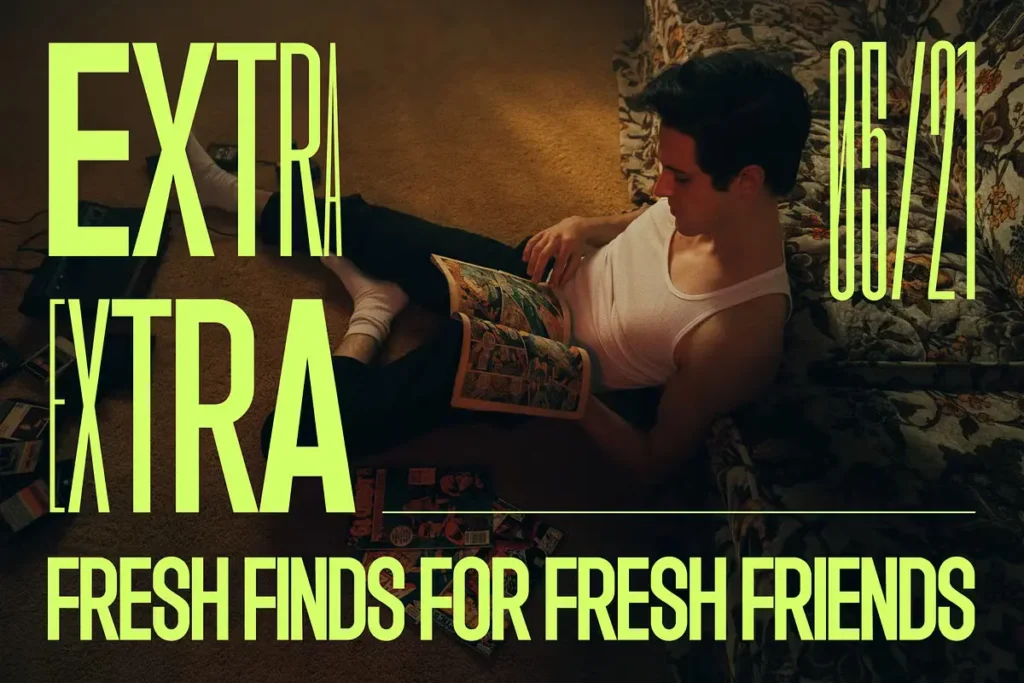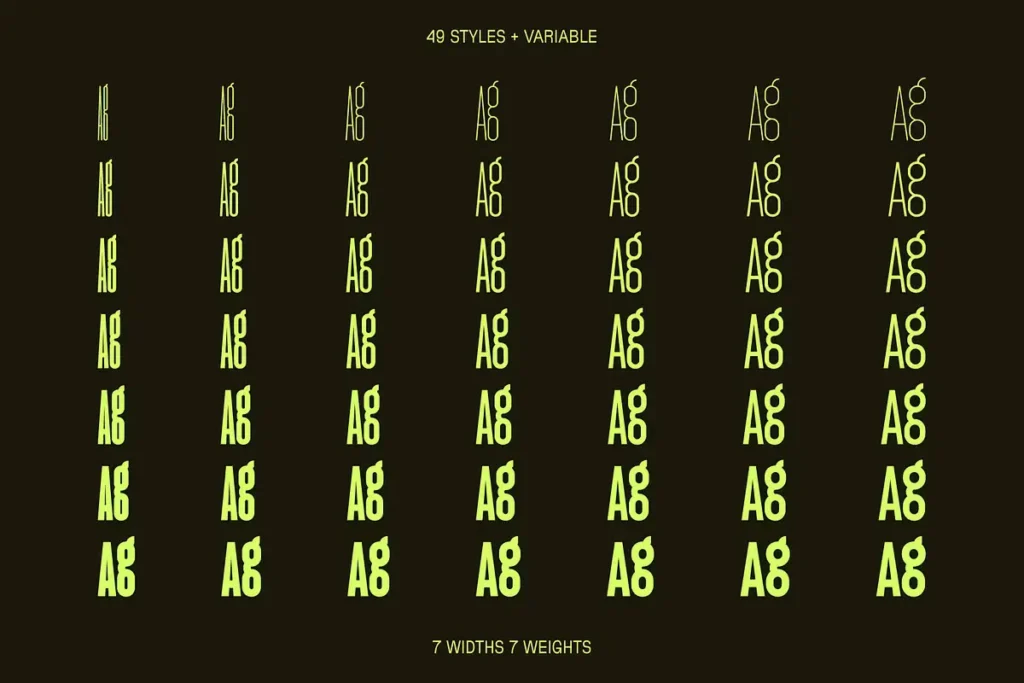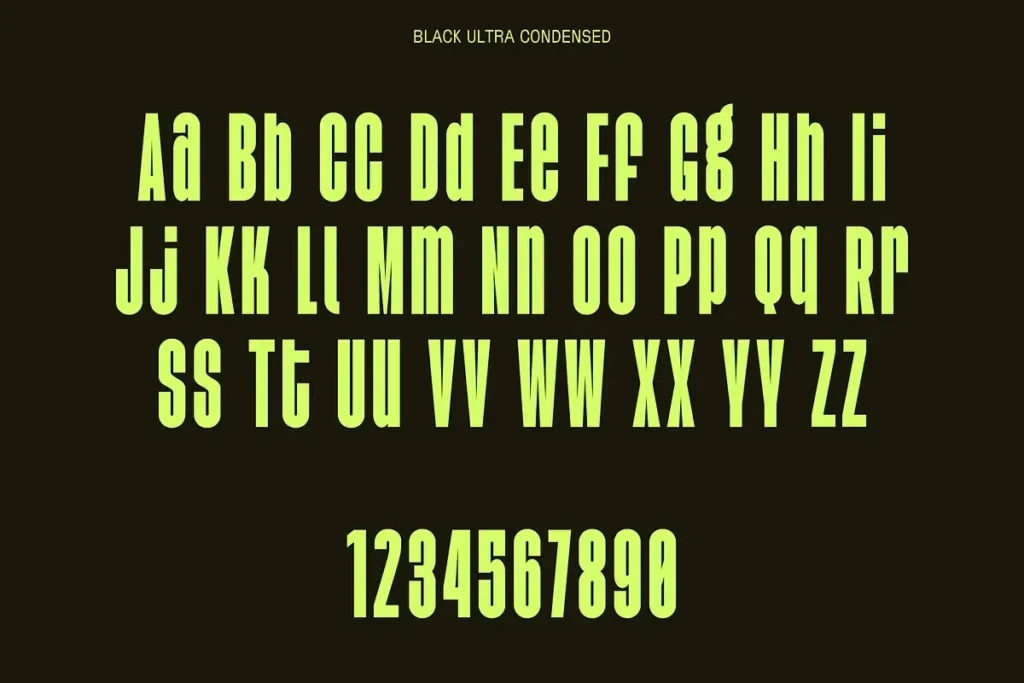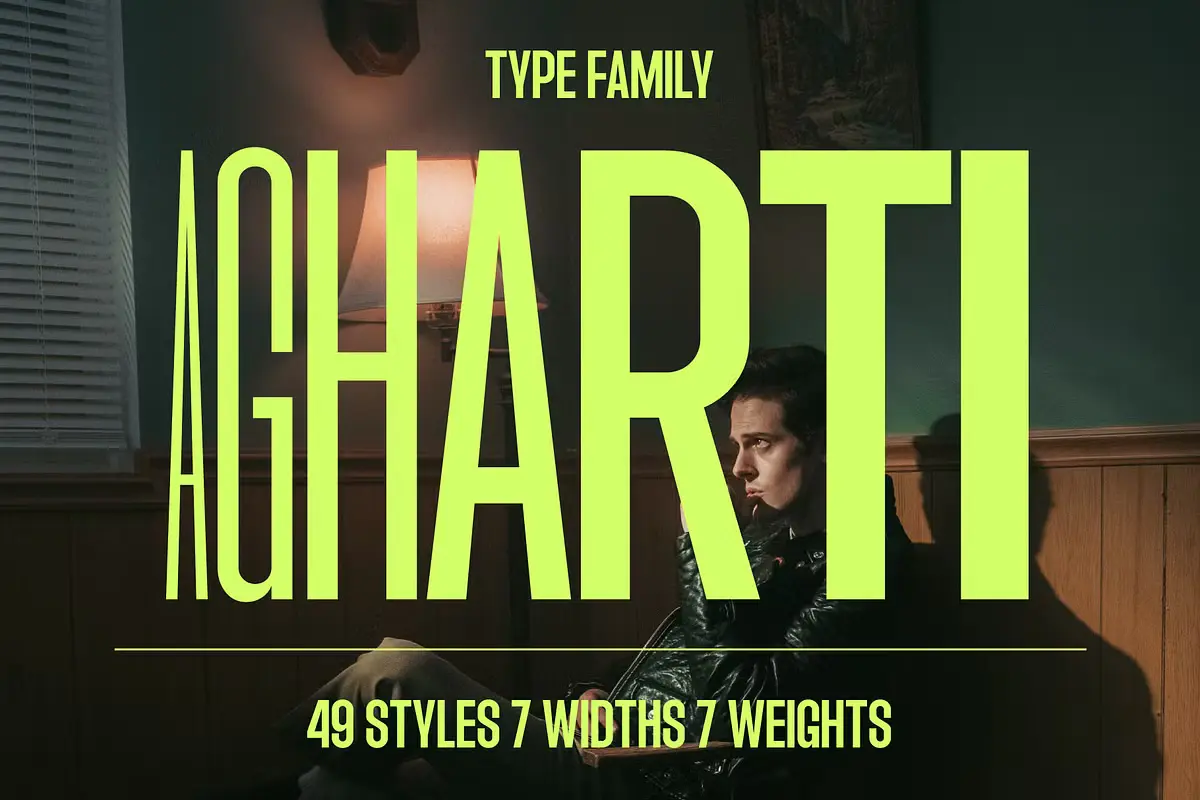
Agharti Family includes 49 fonts in 7 widths and weights as well as one bonus variable typeface or family font. Agharti is a bold condensed display font featuring lowercase letters reaching cap height, making headlines more dynamic without compromising an even and consistent presence – ideal for contemporary logo designs, website designs and print headlines.
Agharti Display Font Family